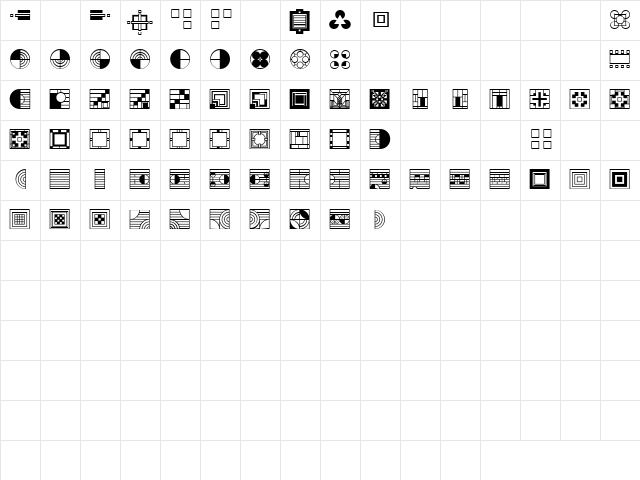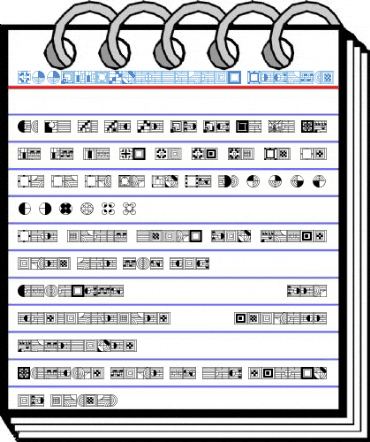
P22 FLLW Exhibition Extras Extras
Style: Extras
Design Context for P22 FLLW Exhibition Extras
P22 FLLW Exhibition Extras is a composed and adaptable typeface that performs quietly and consistently across a wide range of design contexts.